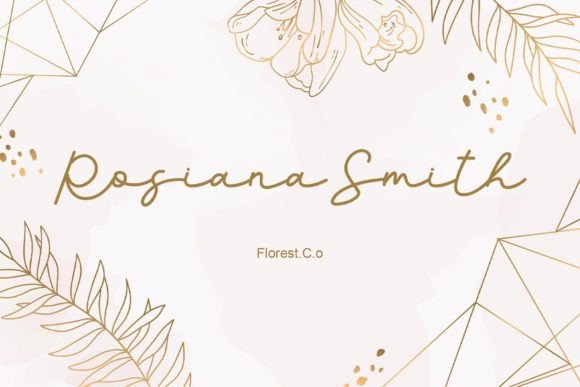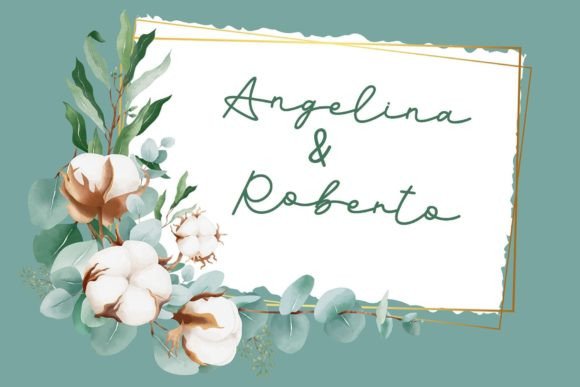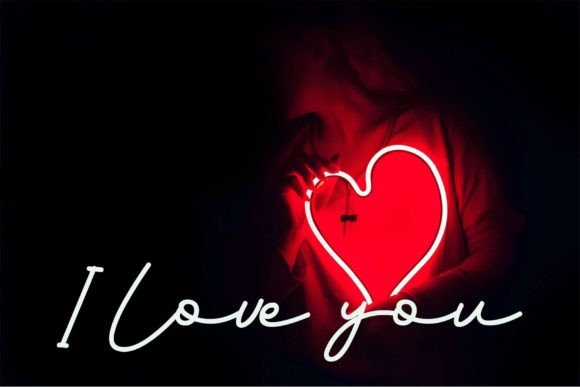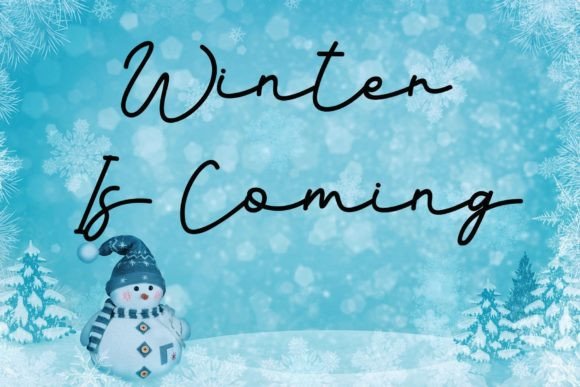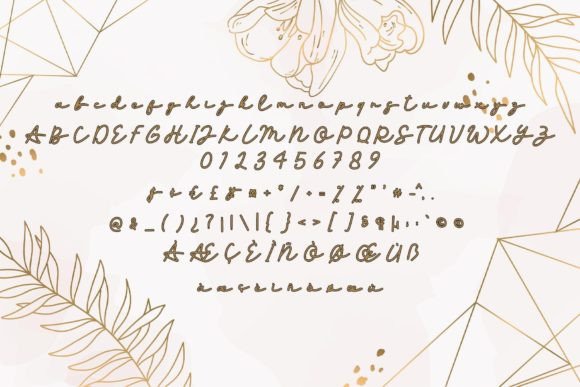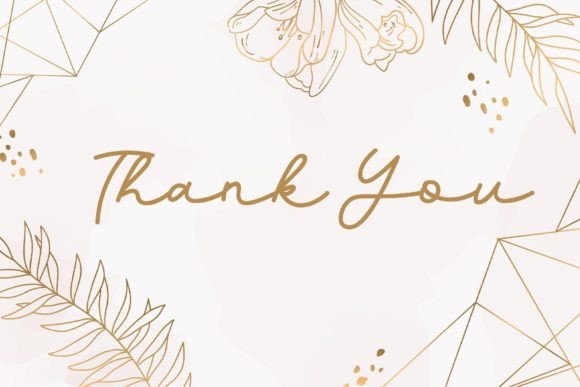
Mistake Font
About Mistake Font
“Mistake” is a fun and friendly handwritten font that injects a sense of playfulness into your design projects. Its unique charm serves as an inspiration, allowing you to turn any design idea into a true standout. With “Mistake,” you can unleash your creativity and craft lovely designs that captivate and delight.
The fun and friendly nature of “Mistake” is immediately apparent in its handwritten style. The font exudes a sense of approachability and whimsy, making it suitable for a variety of design applications. Whether used in invitations, branding, or other creative projects, the font introduces a playful and lighthearted touch.
The unique charm of “Mistake” is a key feature that sets it apart. The font adds character to your text, making it visually interesting and memorable. This uniqueness serves as a catalyst for creativity, allowing you to explore different design possibilities and create standout visuals.
With “Mistake,” you have the opportunity to break away from the conventional and infuse your designs with a distinctive flair. The handwritten font encourages experimentation, making it a valuable tool for those looking to add a touch of spontaneity and creativity to their projects.
In essence, “Mistake” is not just a font; it’s a design companion that brings fun, friendliness, and a unique charm to your creative endeavors. Embrace its handwritten playfulness and let it inspire you to create designs that stand out and leave a lasting impression. Allow “Mistake” to be the element that adds a touch of creativity and personality to your projects, turning them into true standouts in the world of design.